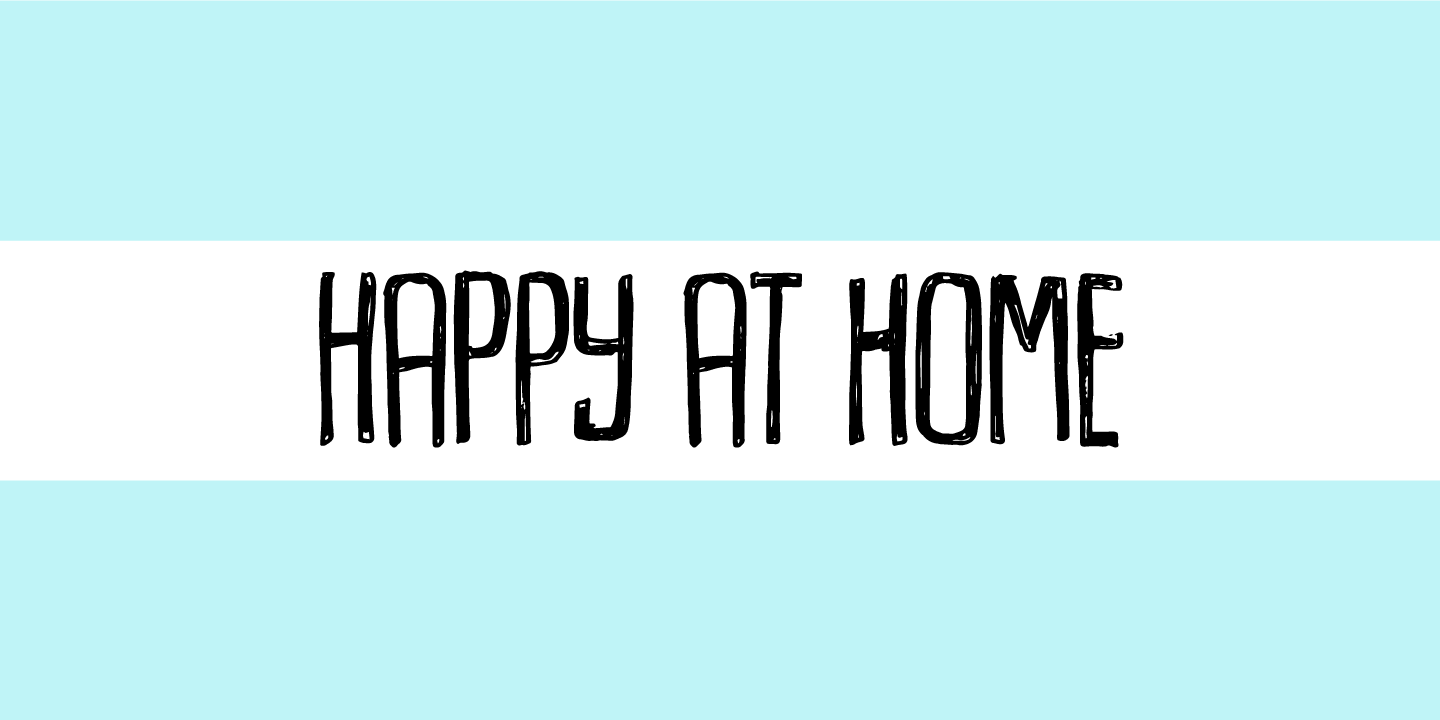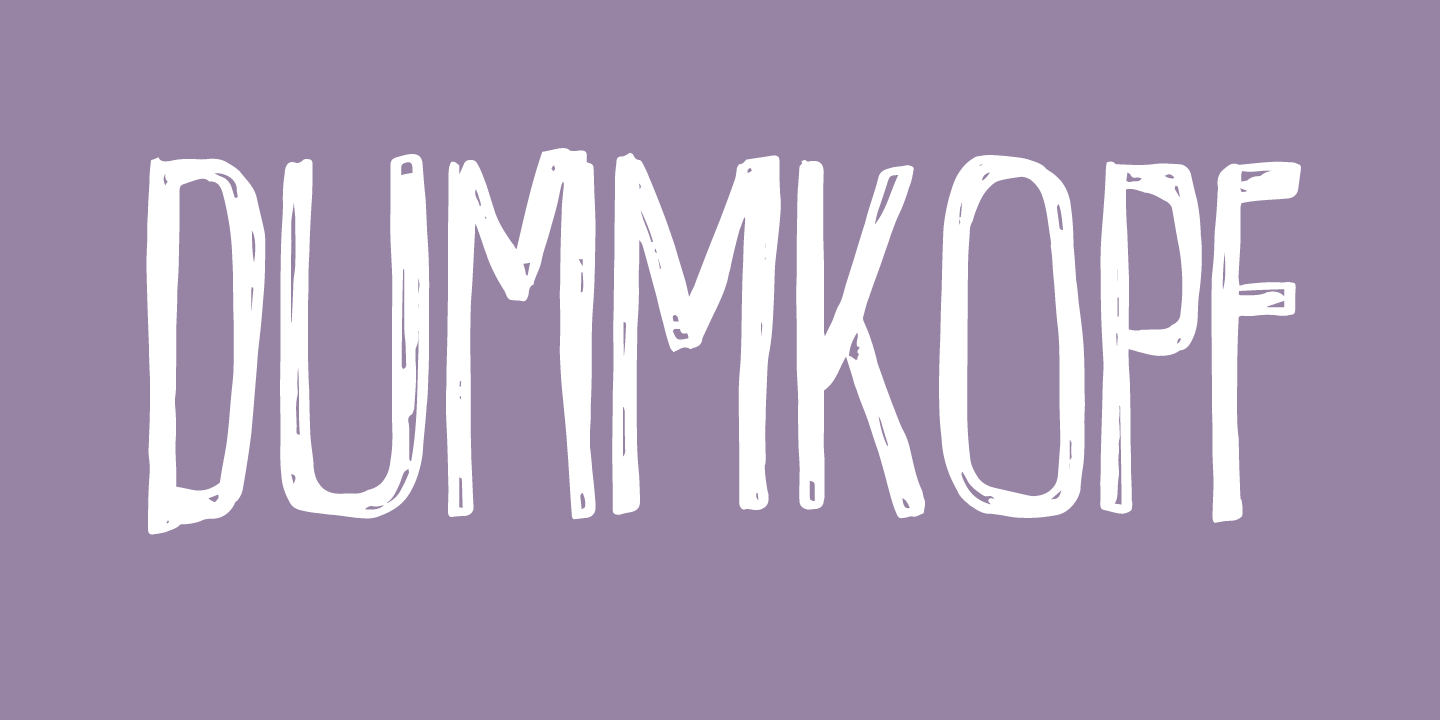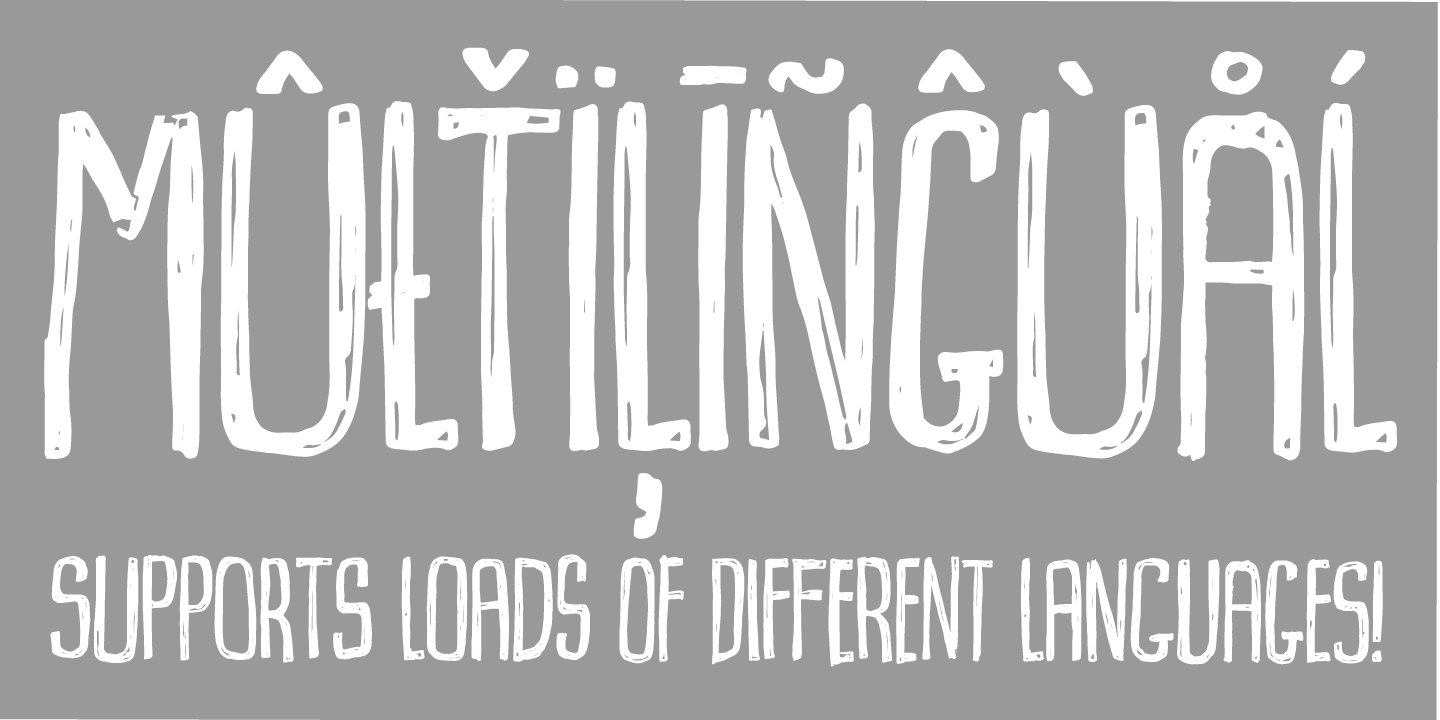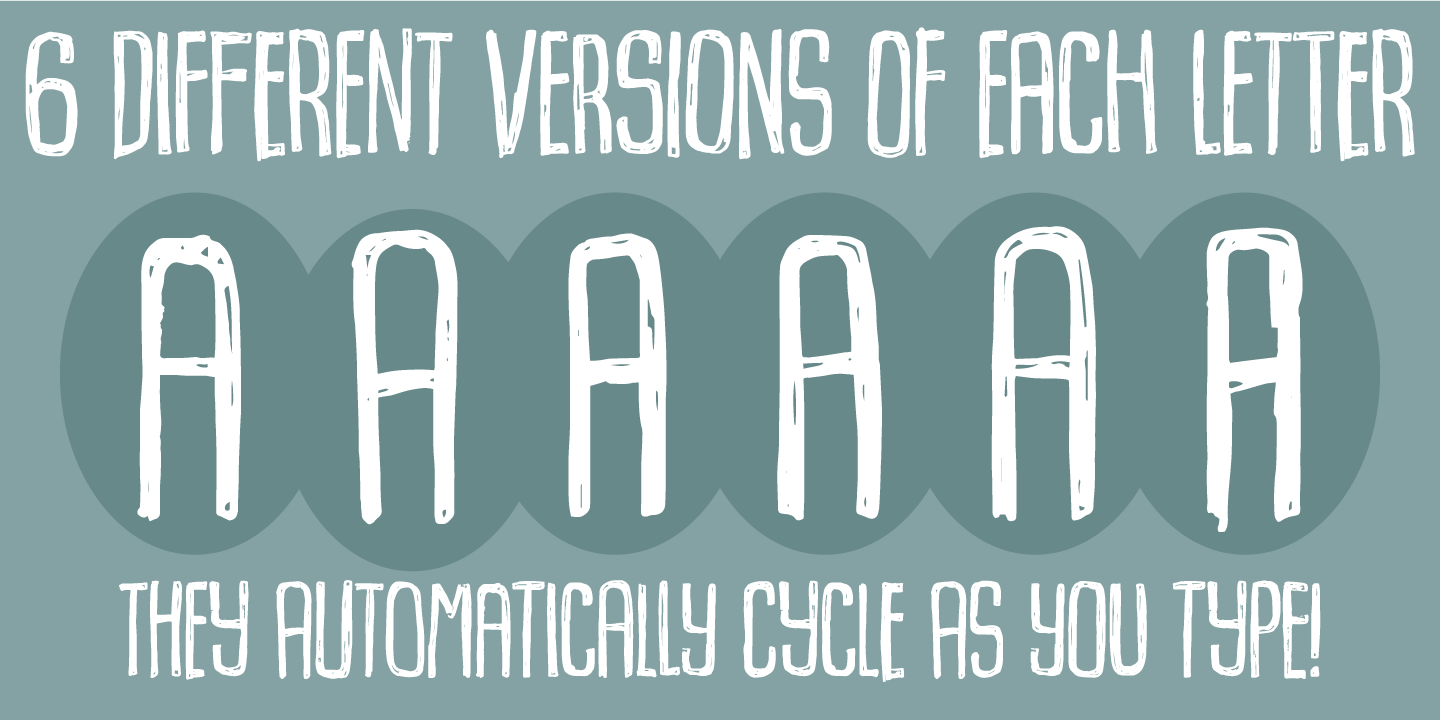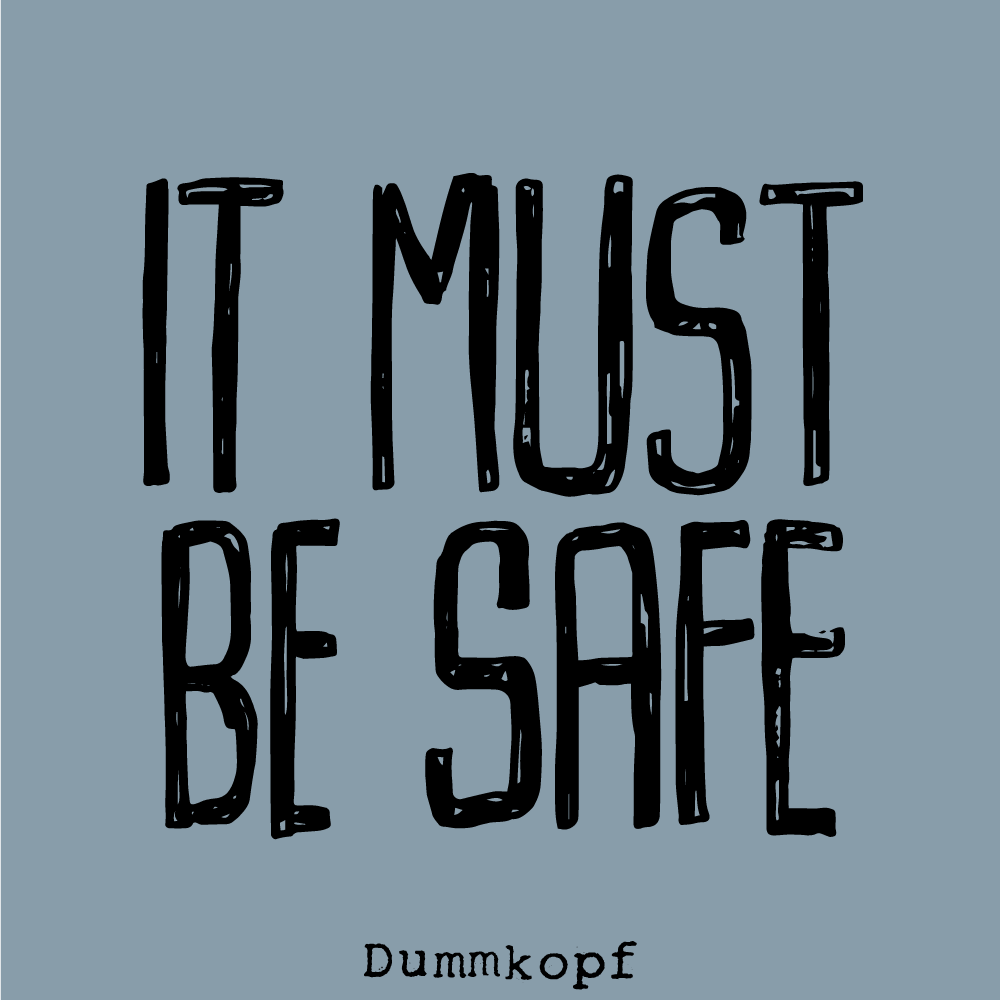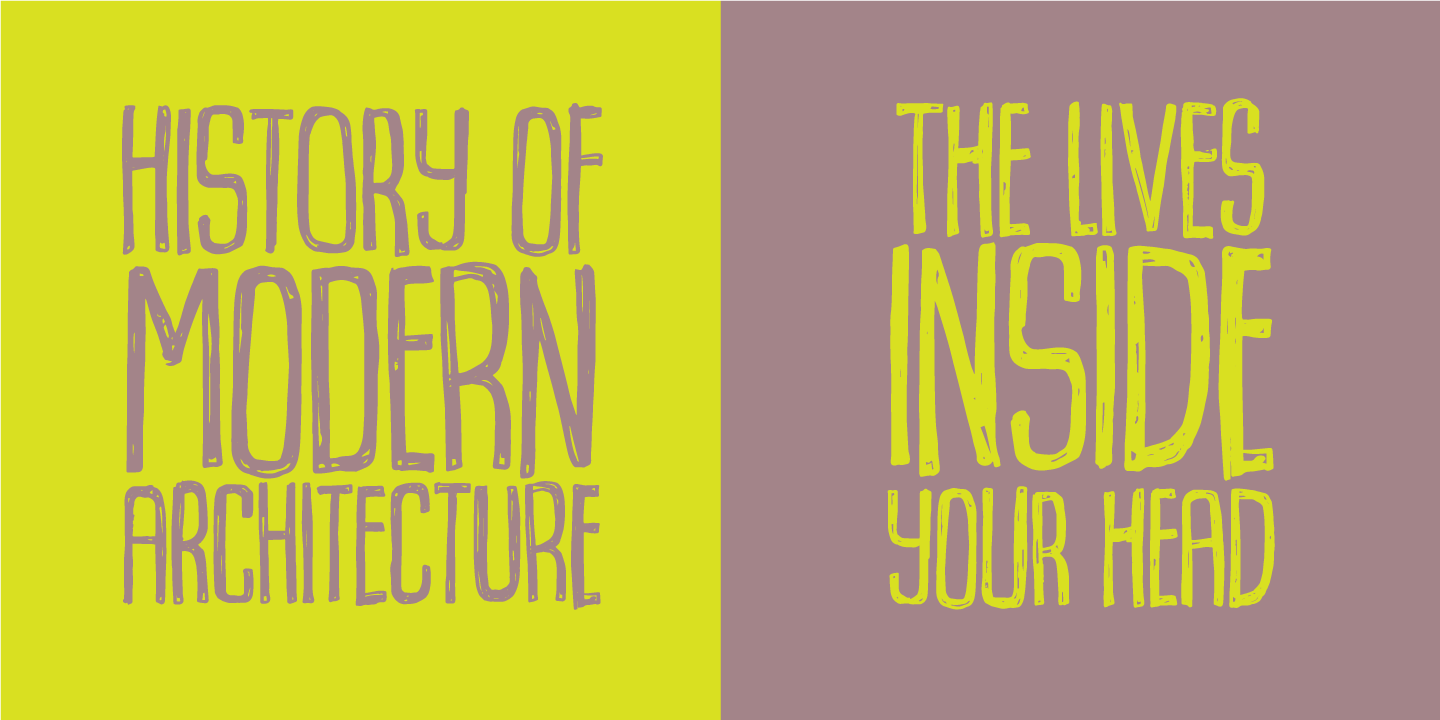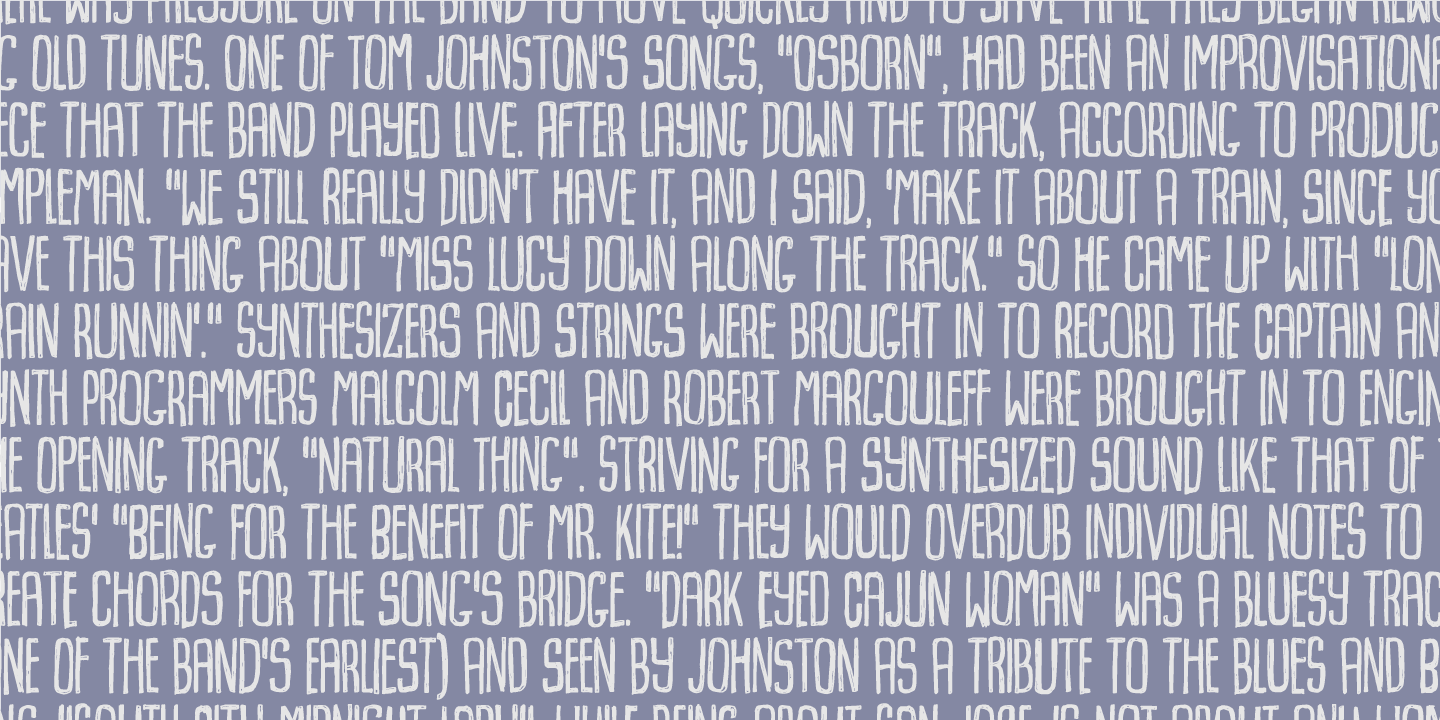
Dummkopf
You probably know what "Dummkopf" means. If not, it's German, and is not positive! But the meaning of that, has nothing to do with this font..but my encounter with a crazy person on a bicycle earlier...Danish people are sometimes quite crazy when riding a bicycle - but this font is not crazy, it's just scribblelicious and is just waiting for you to use it on your next poster! The font has multilingual support as well as contextual alternates!